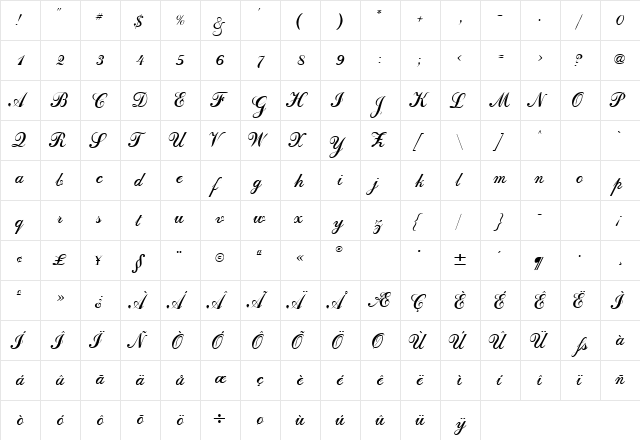
DahlingScriptSSK Regular
Design Context for DahlingScriptSSK Typeface
DahlingScriptSSK brings a calligraphic fluidity to the page — its connecting strokes and expressive curves give it an unmistakably human quality.
Font Pairing: Combine DahlingScriptSSK with a simple geometric sans for maximum contrast — the tension between flowing curves and clean structure is a classic typographic pairing.
Pro Tip: Use DahlingScriptSSK for short runs of text — names, titles, or taglines. Extended body copy in script faces tires the eye quickly.